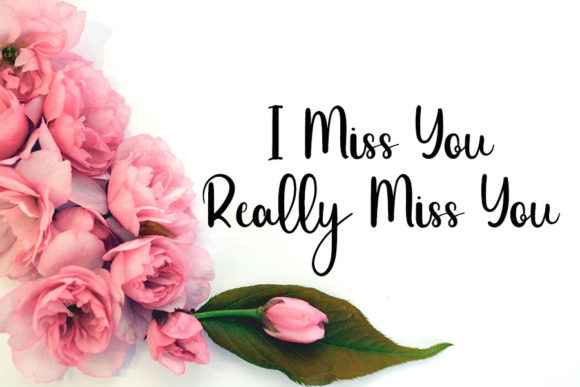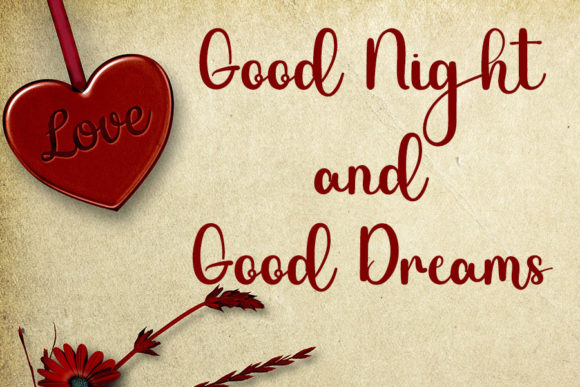
About Hi Heart Font
Hi Heart is a playful and smart-looking handwritten font. It is the best choice for creating eye-catching logos, branding, and quotes. Every letter has a unique and beautiful touch, which will make your design come alive!